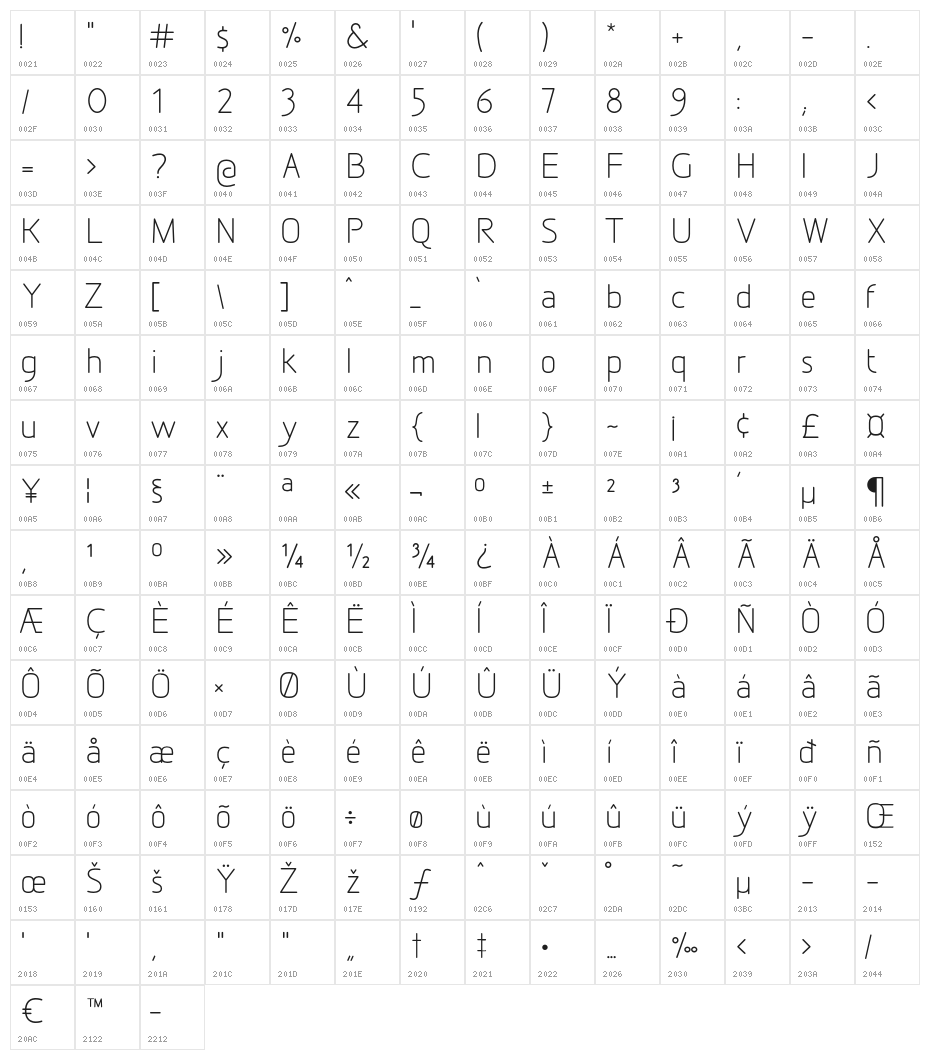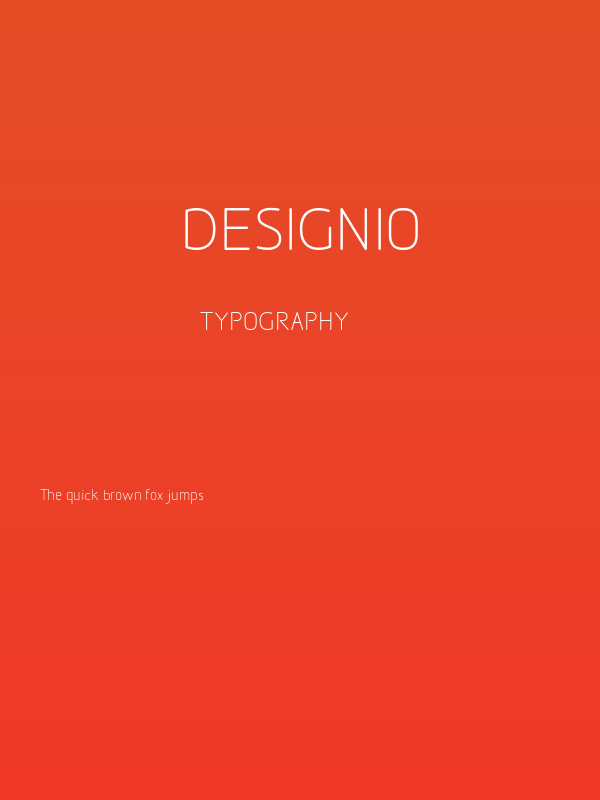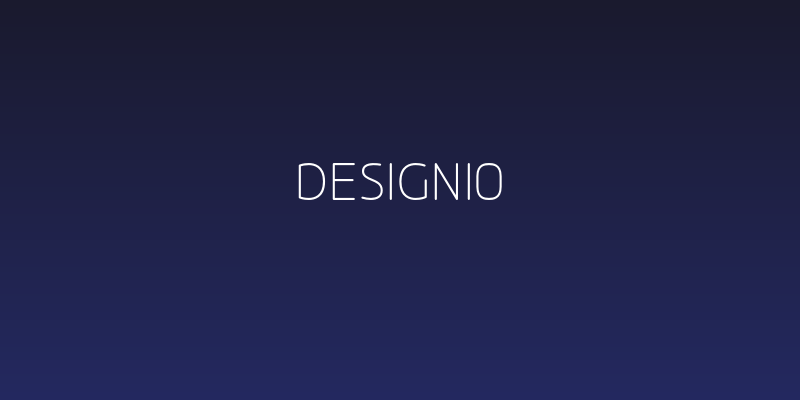
Designio Font
Designio Description
This font features a clean and modern sans-serif design with a geometric structure. Its characters are well-balanced with a uniform stroke width, giving it a sleek and contemporary appearance. The uppercase letters are tall and slightly condensed, while the lowercase letters maintain a consistent height, enhancing readability. The numerals are distinct and align well with the overall style, making them suitable for various applications. The special characters are crafted with precision, maintaining the font's minimalist aesthetic. This font is versatile, offering clarity and elegance in both digital and print media.
| Proposed Projects | Ideal for branding, web design, corporate materials, and editorial layouts. |